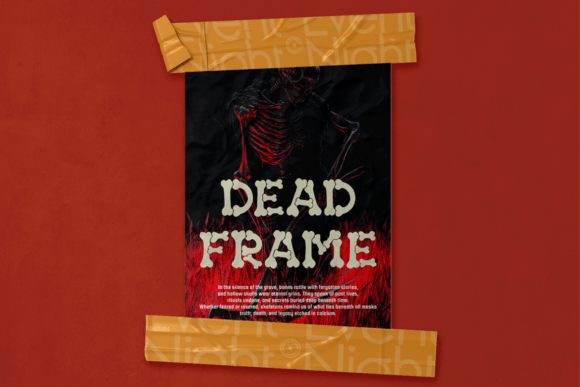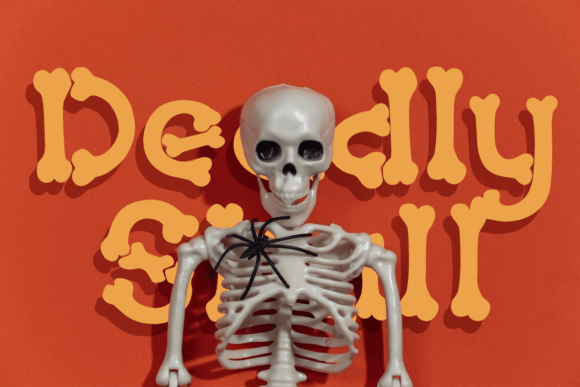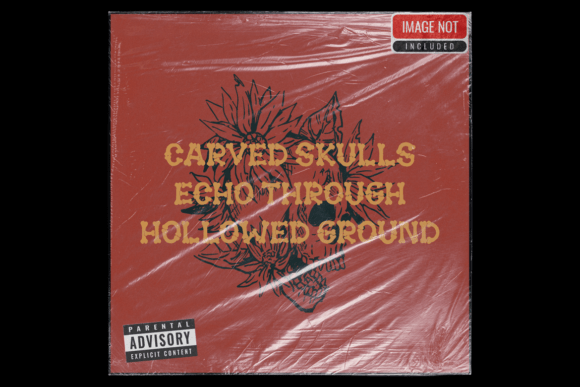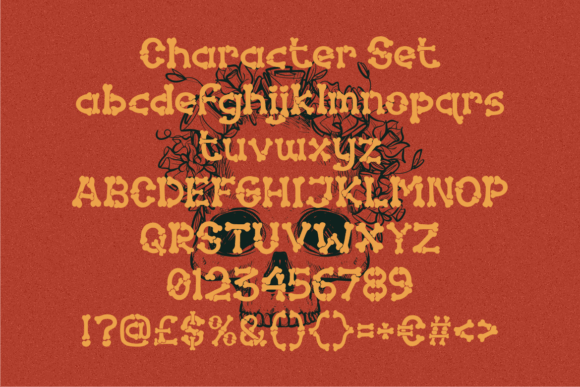
Unleash the Spookiness: A Comprehensive Guide to Halloween Bones Font
As the spookiest time of the year approaches, designers and crafters are on the lookout for the perfect font to capture the eerie essence of Halloween. Look no further than the Halloween Bones Font, a bold skeleton display font that is sure to send chills down the spines of your audience. In this article, we’ll dive into the details of this fantastic font, exploring its features, uses, and benefits for your Halloween-themed projects.
What is Halloween Bones Font?
Halloween Bones is a unique and captivating font that embodies the playful yet spooky spirit of Halloween. Crafted from stylized bone shapes, this font features bold and chunky letterforms that are both legible and attention-grabbing. The visuals are enhanced with cartoonish details, striking a perfect balance between creepy and charming.
Key Features of Halloween Bones Font
- Bold Skeleton Display Font: Halloween Bones is a statement font that demands attention with its bold and chunky structure.
- Stylized Bone Shapes: The font’s letterforms are crafted from stylized bone shapes, adding a touch of eeriness and whimsy.
- Playful yet Spooky: The font’s design strikes a perfect balance between playful and spooky, making it ideal for Halloween-themed projects.
- Cartoonish Details: The font features cartoonish details that add a touch of charm and whimsy to your designs.
- Legible and Readable: Despite its bold and chunky structure, Halloween Bones is surprisingly legible and easy to read.
Uses for Halloween Bones Font
Halloween Bones is a versatile font that can be used for a wide range of Halloween-themed projects, including:
- Halloween Invitations and Party Decor: Use Halloween Bones to create spooky and eye-catching invitations, party decor, and signage.
- Graphic Design and Illustration: Add a touch of eeriness to your graphic designs and illustrations with this bold and captivating font.
- Crafting and DIY Projects: Halloween Bones is perfect for crafting and DIY projects, such as making Halloween-themed cards, gift tags, and decorations.
- Web and Social Media Graphics: Use Halloween Bones to create eye-catching web and social media graphics, such as Halloween-themed headers, banners, and posts.
Benefits of Using Halloween Bones Font
So why choose Halloween Bones for your Halloween-themed projects? Here are just a few benefits:
- Unique and Eye-Catching: Halloween Bones is a one-of-a-kind font that is sure to grab attention and stand out from the crowd.
- Versatile: Halloween Bones can be used for a wide range of projects, from graphic design and illustration to crafting and DIY.